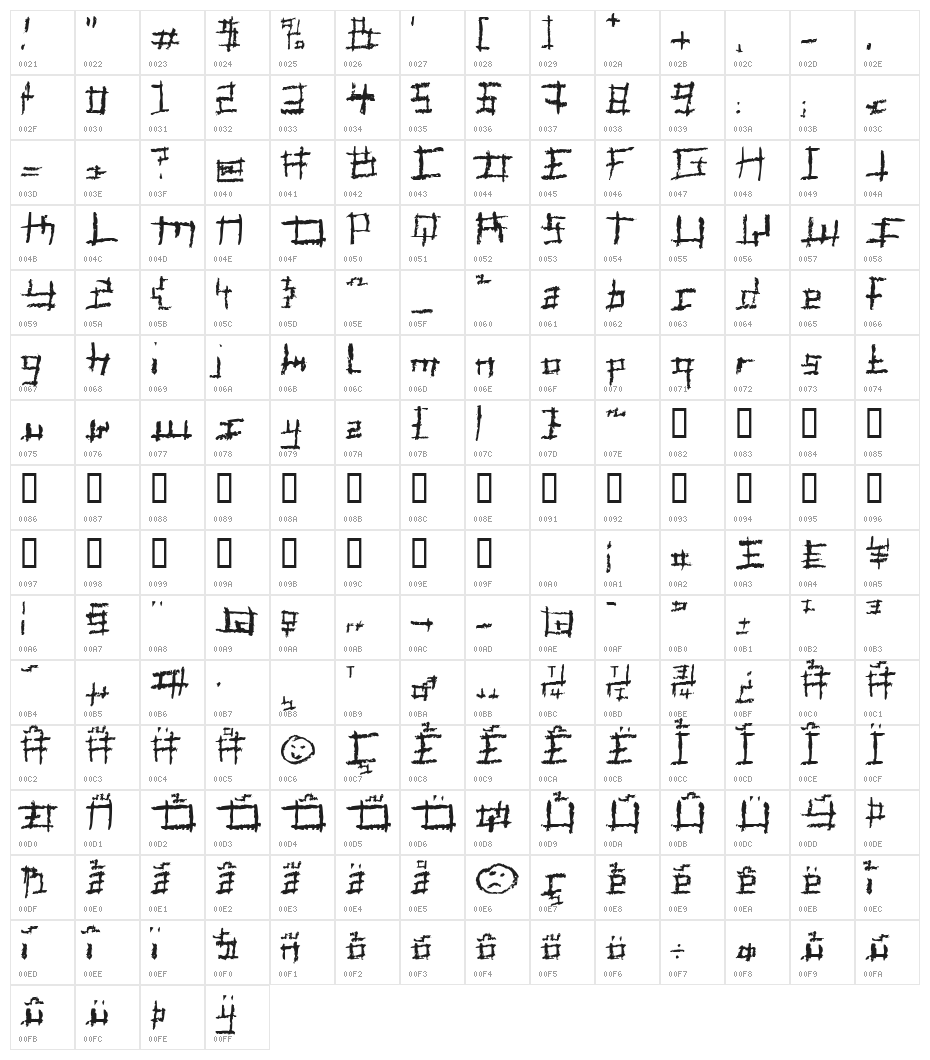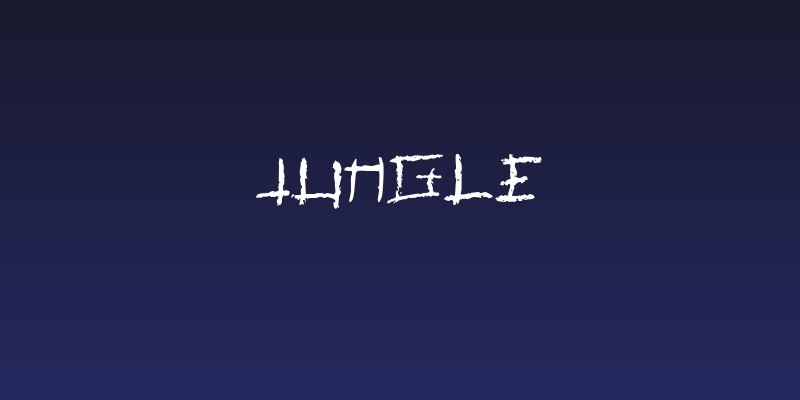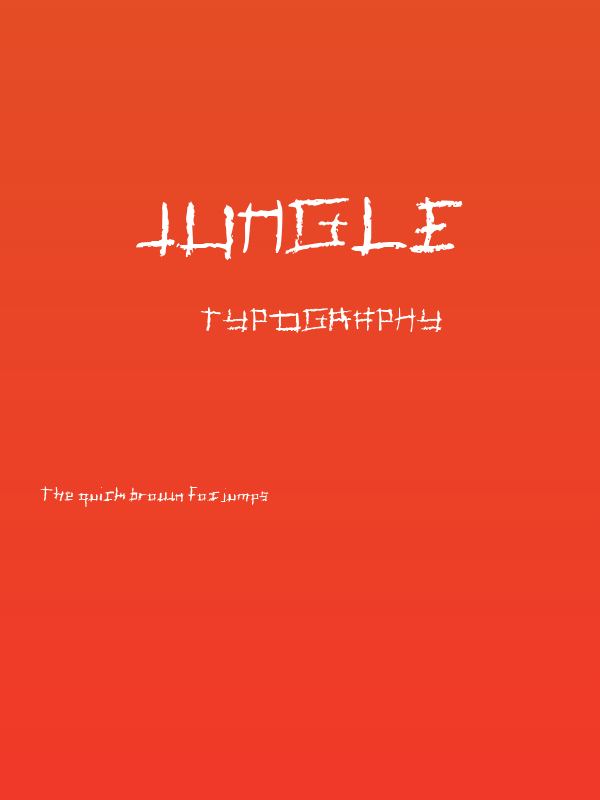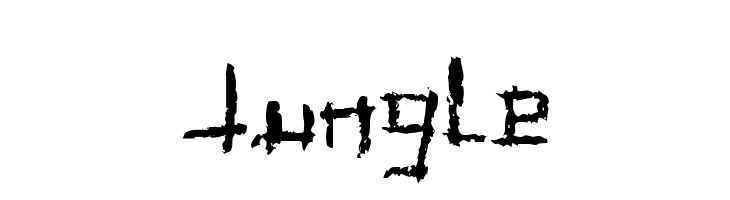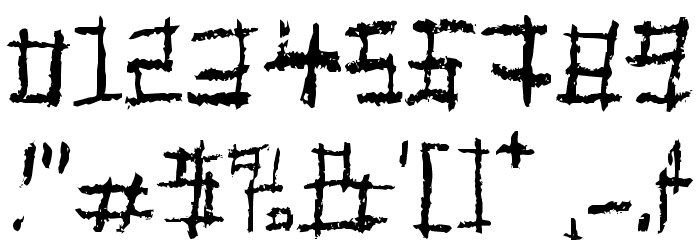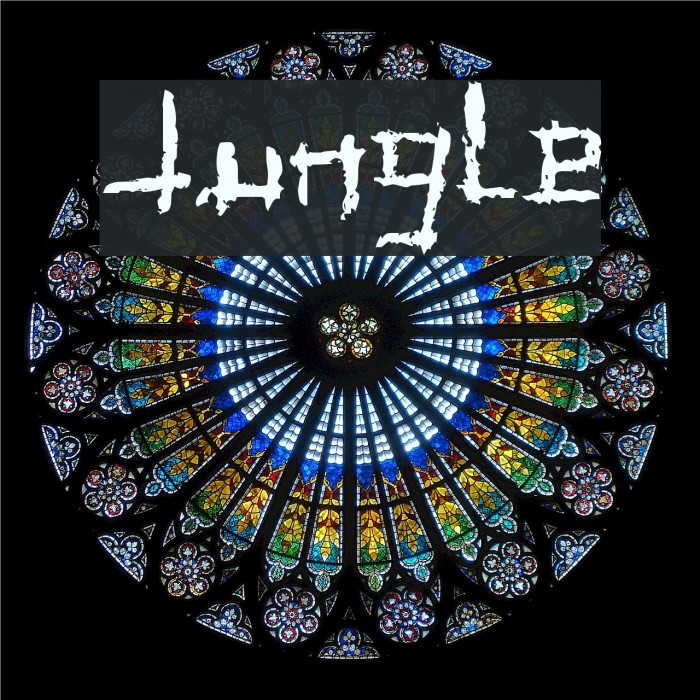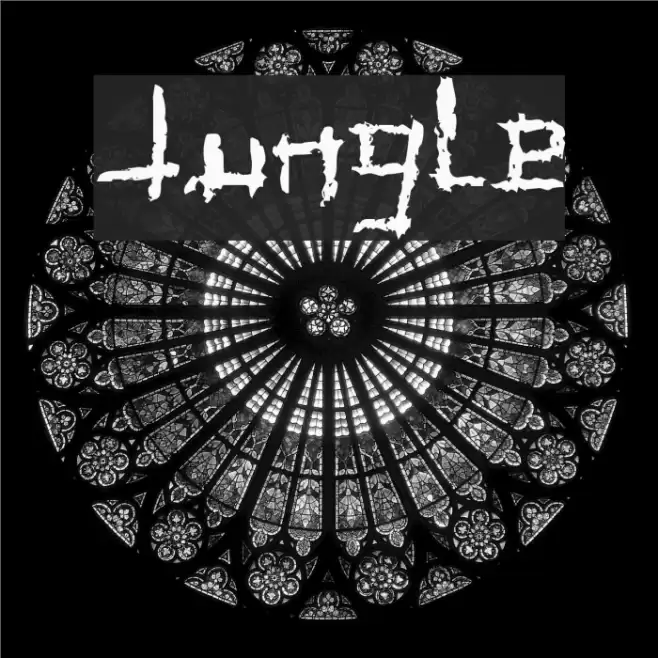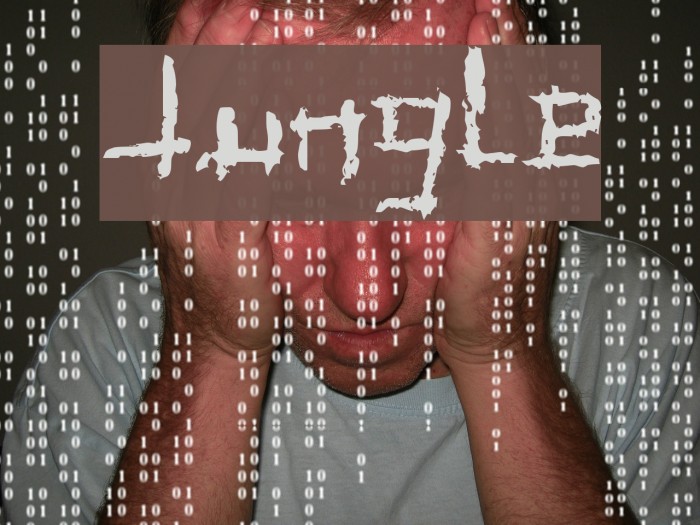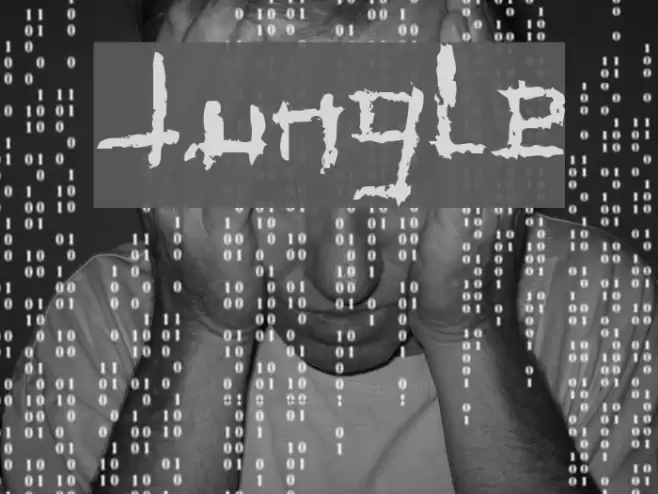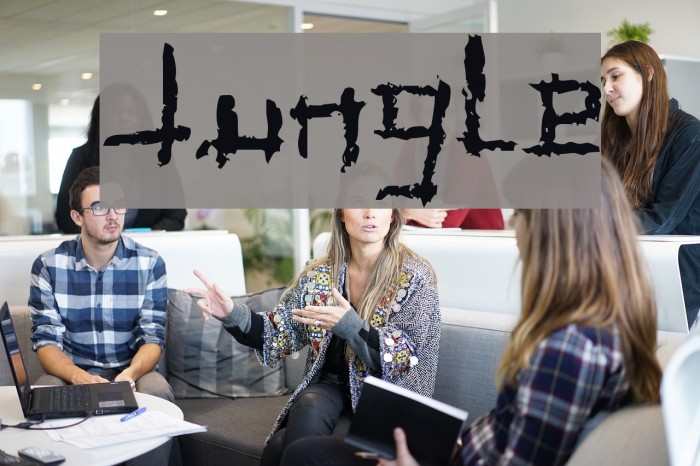
Jungle Font
Jungle Description
This font features a rugged, organic appearance reminiscent of natural textures. The characters are irregular and jagged, giving a wild and untamed feel. The strokes are uneven, with a hand-drawn quality that suggests spontaneity and rawness. Each letter appears to be crafted with a brush-like tool, resulting in a textured, almost distressed look. The font's unique style makes it stand out, capturing attention with its bold and adventurous aesthetic. It's perfect for projects that aim to convey a sense of nature, wilderness, or creativity.
| Proposed Projects | Ideal for adventure-themed posters, nature-related branding, or creative art projects. |